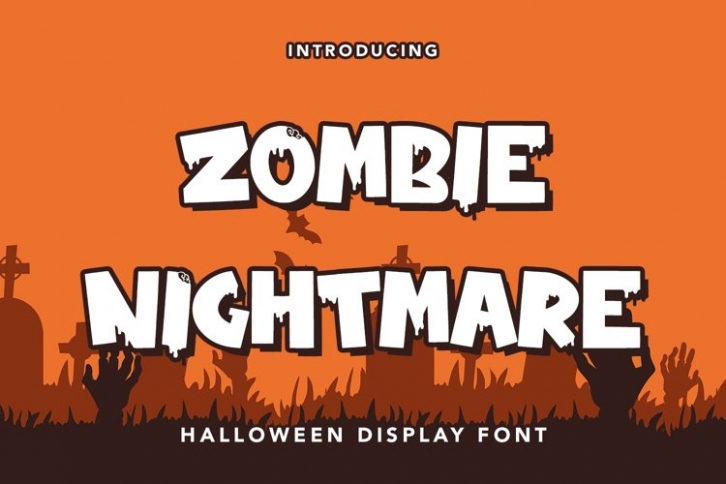
Zombie Nightmare is a trendy and unique font with an authentic style. It was designed by plusstore and it's a great choice for creative people who need such a font. It was released on August 20, 2021 and the file size is 10.35 MB. Zombie Nightmare will add an organic vibe to any design idea!